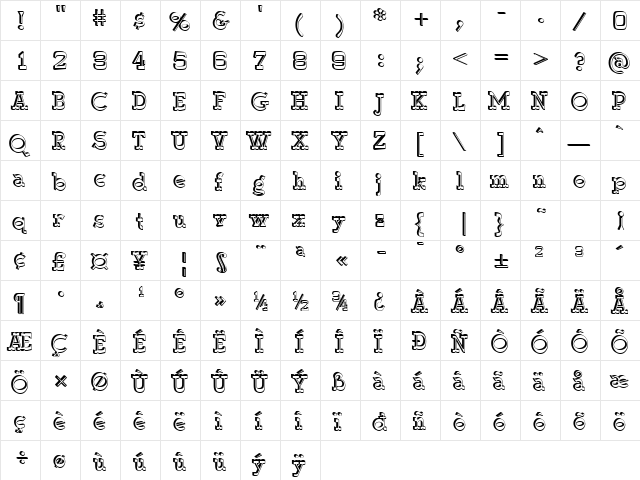
WyomingMacroniShadowed Regular
Design Context for WyomingMacroniShadowed Typeface
WyomingMacroniShadowed is built around its visual character rather than neutral utility — its distinctive forms are designed to make an impression at display sizes.
Font Pairing: Pair with a clean neutral sans-serif for body copy to let WyomingMacroniShadowed's character lead without overwhelming the composition.
Pro Tip: Use WyomingMacroniShadowed exclusively at display sizes — it was designed to be seen, not read at length. Let a neutral companion handle body copy.